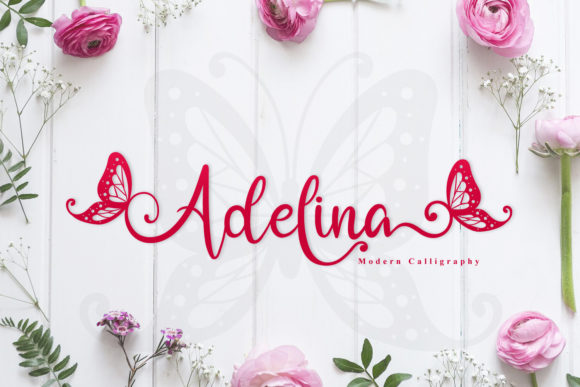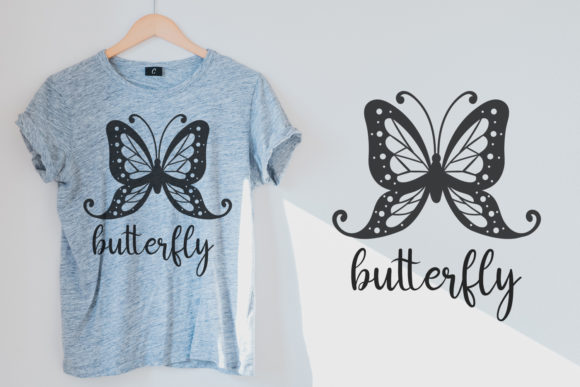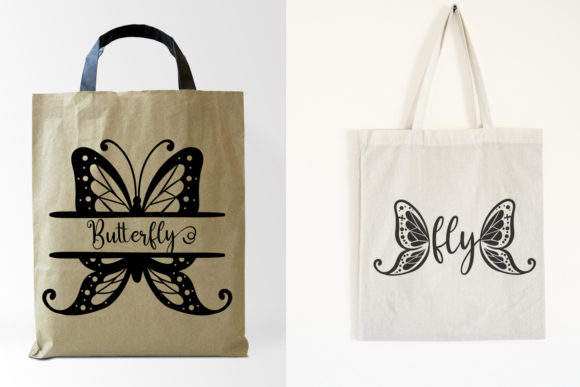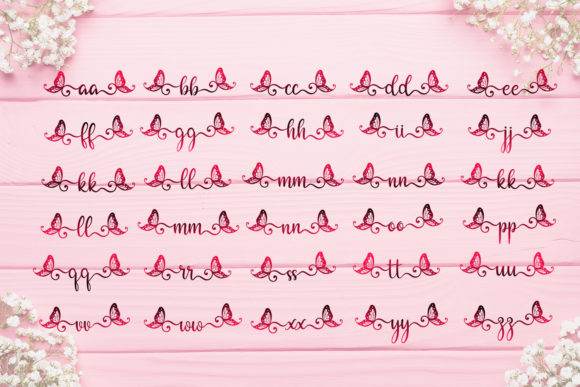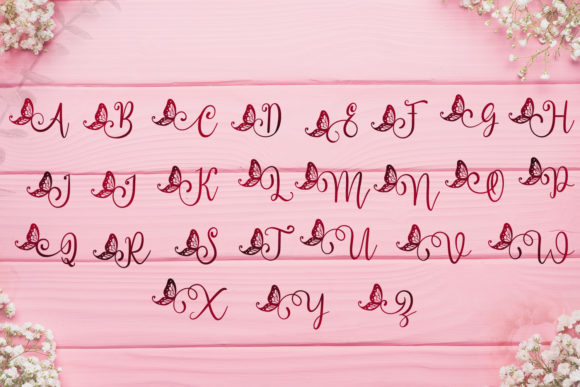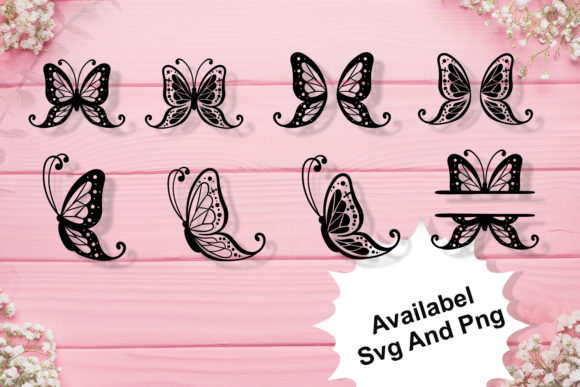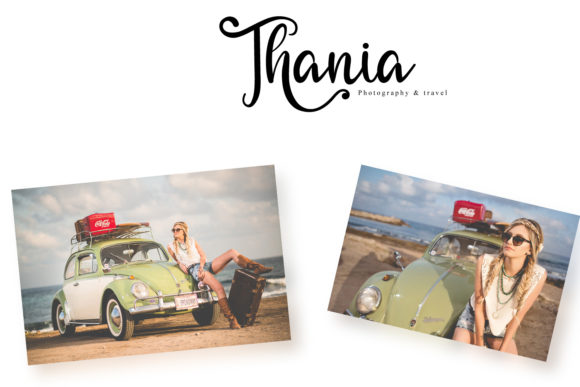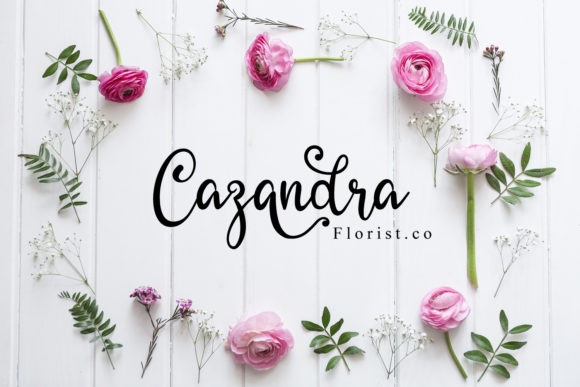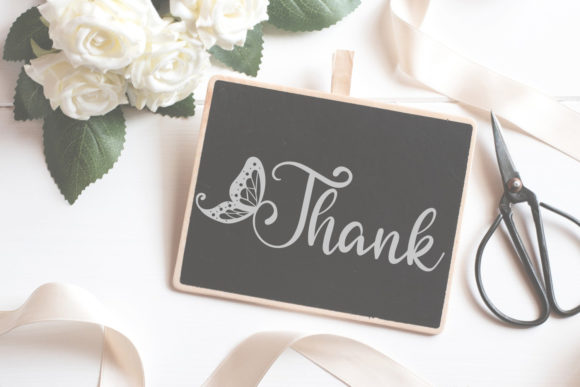
Adelina Font
About Adelina Font
Adelina sounds like a truly enchanting and versatile handwritten font, perfect for a wide range of design projects. With its charming and elegant appeal, Adelina can add a touch of sophistication and beauty to various creative works. Here are some delightful ideas on how to use Adelina to create stunning designs:
1. Wedding Invitations: Design romantic and elegant wedding invitations using Adelina font to set the tone for a special and memorable celebration of love.
2. Thank You Cards: Create heartfelt and beautifully designed thank you cards featuring Adelina font to express gratitude in a stylish and personalized way.
3. Quotes and Inspirational Prints: Design captivating quote prints, motivational posters, or wall art using Adelina font to uplift and inspire with its graceful letterforms.
4. Greeting Cards: Craft exquisite and touching greeting cards for occasions like birthdays, anniversaries, or holidays using Adelina font for a heartfelt and authentic touch.
5. Branding and Logos: Use Adelina font in branding elements, logos, and business cards to give your brand a sophisticated and handwritten signature.
6. Stationery and Letterhead: Incorporate Adelina font into stationery design and letterhead to add a sense of elegance and refinement to your correspondence.
7. Social Media Graphics: Create eye-catching and engaging social media posts, stories, and banners with Adelina font to capture attention and convey messages with style.
8. Book Covers: Design captivating book covers, whether for novels, poetry collections, or self-help books, using Adelina font to create a unique and memorable visual identity.
9. Blog and Website Titles: Use Adelina font for blog or website titles and headers to make a strong and elegant first impression on visitors.
10. Personal Branding: Apply Adelina font to personal branding elements, such as signatures or watermarks, to give your online presence a sophisticated touch.
11. Event Signage: Design elegant event signage, such as welcome signs or seating charts, using Adelina font to add a refined and graceful touch.
12. Artistic Lettering: Experiment with Adelina font for artistic lettering pieces, blending its elegance with various art mediums like watercolors or digital illustrations.
13. Business Presentations: Incorporate Adelina font into business presentations to add a touch of charm and elegance to your slides.
14. Menu Design: Create elegant and visually appealing menus for restaurants or cafes using Adelina font to complement the dining experience.
15. Packaging Design: Use Adelina font in product packaging design to add an artistic and handcrafted feel to your products.
16. Art Prints: Design exquisite art prints using Adelina font to showcase its beautiful and flowing letterforms.
17. Personalized Gifts: Apply Adelina font to create personalized gifts, such as custom stationery, wine labels, or engraved items, for a touch of sophistication and thoughtfulness.
18. Handwritten Quotes: Use Adelina font to write out handwritten quotes or messages in digital art, social media graphics, or printed artworks.
19. Elegant Invitations: Design elegant event invitations for formal gatherings, charity galas, or corporate events using Adelina font for a refined and sophisticated touch.
20. Beauty and Fashion Branding: Incorporate Adelina font into beauty or fashion branding to evoke a sense of elegance and glamour.
In summary, Adelina’s charming and elegant style makes it an excellent choice for various design projects, from wedding invitations and thank you cards to logos and social media graphics. Its versatility and PUA encoding allow you to access all its beautiful glyphs and swashes with ease, making it a joy to work with. Embrace the sophistication and beauty of Adelina font to create stunning designs that leave a lasting impression on your audience.